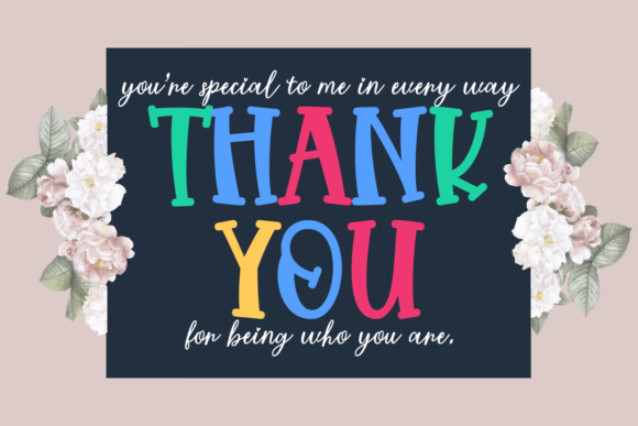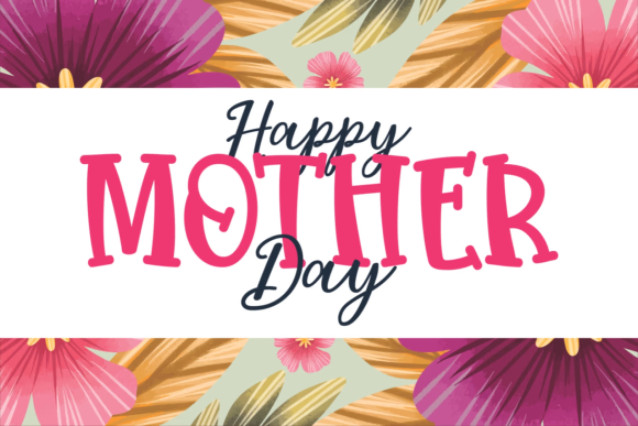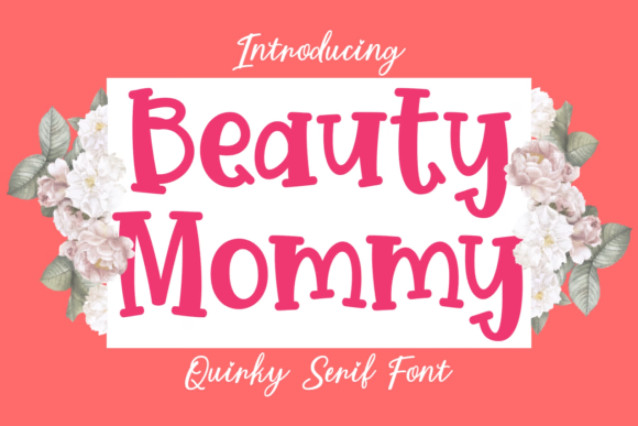
Beauty Mommy is a cute, quirky serif font. Whether you are using it for cartoon-related designs, children’s games, quotes, titles, brand names, book covers, posters, or just any creation that requires a touch of beauty, this font is a great choice.
Beauty Mommy Font